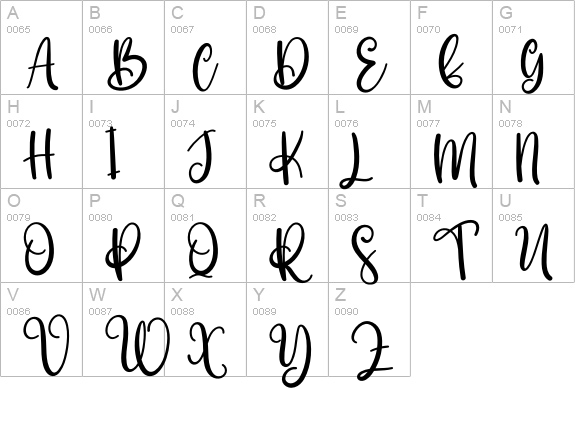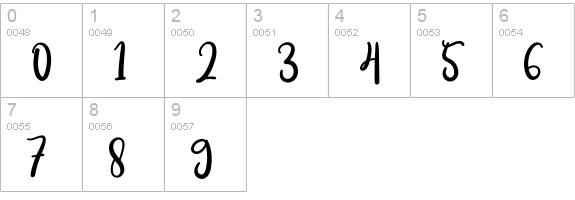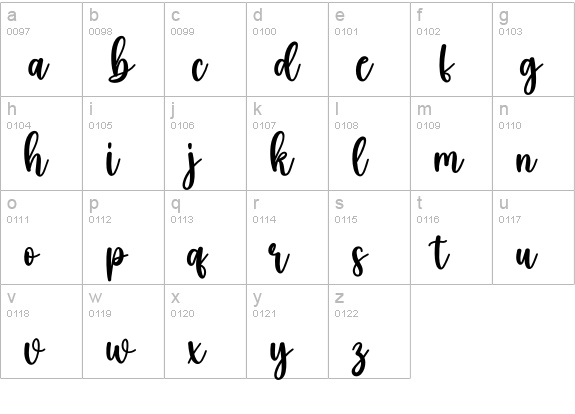
Boho Font Details
Boho is a free for personal use font in the Script > Handwritten category, designed by scratchones. It has been downloaded 20 times and is available for Windows, Mac and Linux.
Boho font exudes a carefree and artistic vibe, perfect for adding a touch of whimsy to your design projects. This unique font features intricate and flowing lines that capture the essence of bohemian style. Whether you're creating invitations, posters, or branding materials, Boho font adds a touch of creativity and individuality to your work.